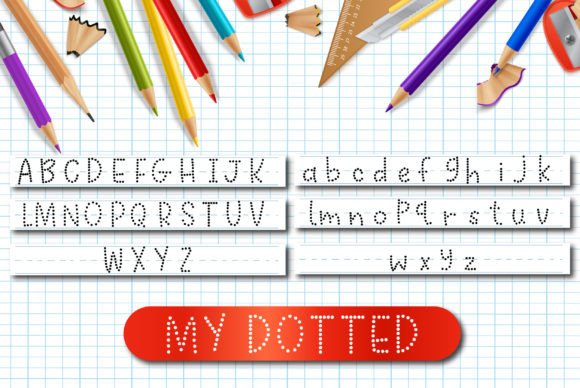
Step into a world of captivating creativity with My Dotted Font, where words dance with elegance and charm. Its script family beckons you to explore a universe of handwritten beauty, inviting you to capture the essence of authenticity and individuality.
Unleash your inner artist and embrace the art of penmanship with My Dotted Font, designed to evoke the nostalgia of childhood scribbles and the allure of heartfelt notes. Let your imagination soar as you craft personalized alphabet tracing sheets, transforming learning into a magical adventure.
Picture the joy in a child's eyes as they trace the dotted lines, shaping letters that carry their unique style. Encourage their creativity, nurture their love for written expression, and watch as their budding talent blossoms. My Dotted Font is not just a font; it's a gateway to unlocking self-expression and fostering a profound appreciation for the written word.
Beyond its educational charm, My Dotted Font adds a touch of whimsical flair to your personal world. Envision the delight of crafting a heartfelt journal, where your thoughts and dreams find a home amidst graceful curves and playful dots. Transform your diary planner into a symphony of creativity, where each entry dances with personality.
Let My Dotted Font inspire your social media presence, adding a touch of warmth and authenticity to your posts. Its friendly nature invites engagement, making your words resonate with your audience on a deeper level. Whether it's a heartfelt message to a loved one or a captivating caption for your latest adventure, My Dotted Font elevates your digital interactions.
With My Dotted Font, the possibilities are endless. Dive into a world of DIY projects, allowing your creativity to flow freely. Design eye-catching invitations that hint at the special occasion within, or let your imagination run wild as you craft unique greeting cards that carry your heartfelt sentiments.